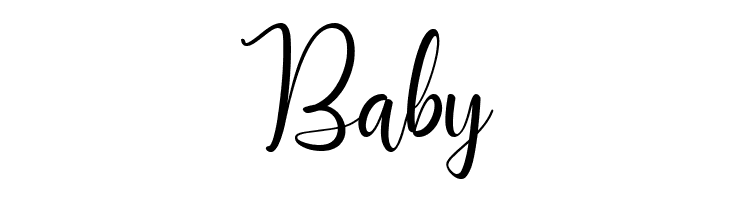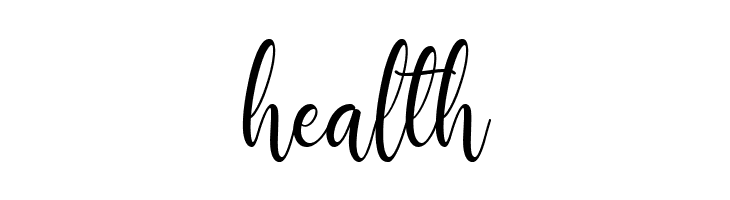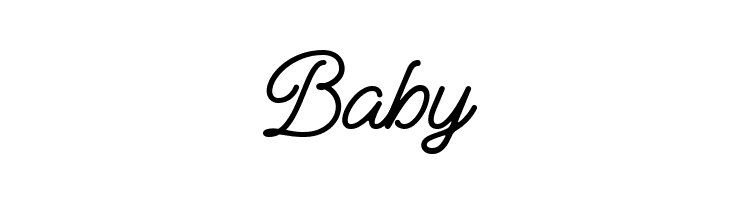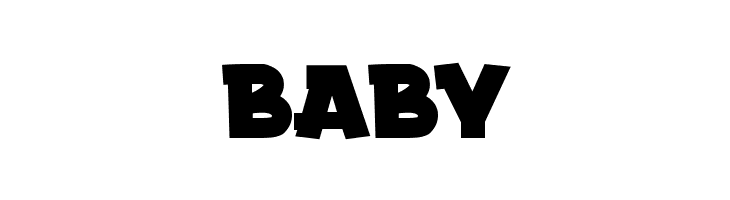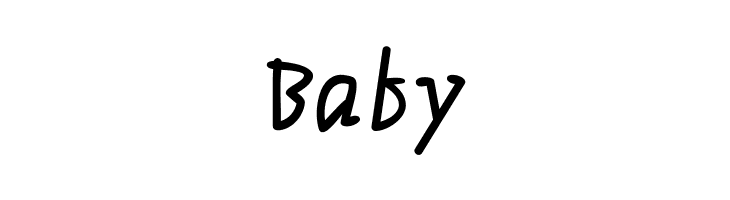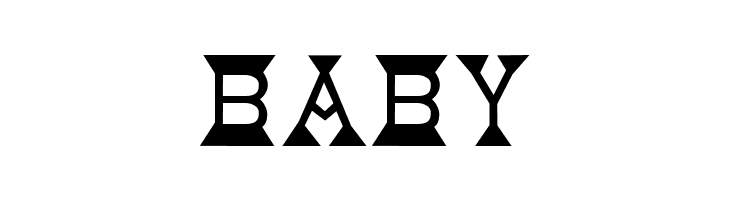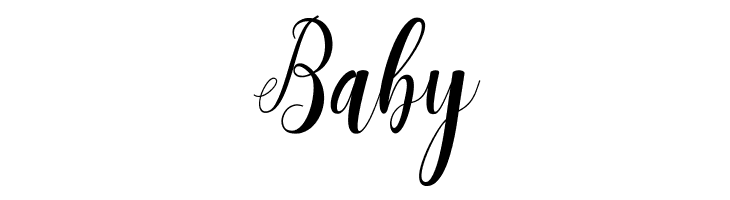
A bold, playful font with thick, whimsical characters.
An elegant script font with flowing curves and a handwritten feel.
A bold, geometric font with unique cut-out shapes and sharp edges.
A cursive, handwritten-style font with elegant, flowing characters.
A classic, elegant script font with flowing, cursive letters.
An elegant and flowing script font with smooth, cursive letterforms.
A bold, handwritten-style font with smooth, rounded characters.
A playful and dynamic font with whimsical letterforms and bold strokes.